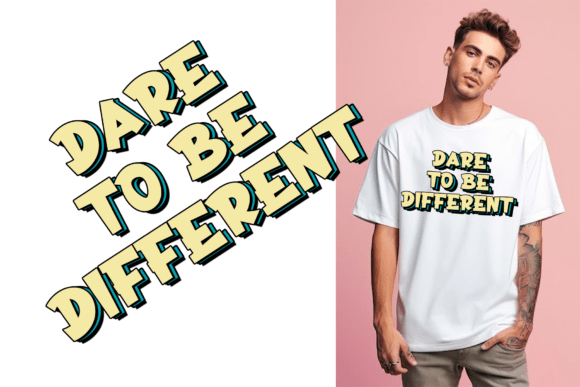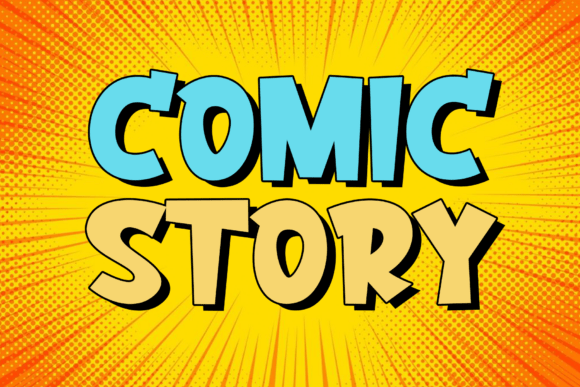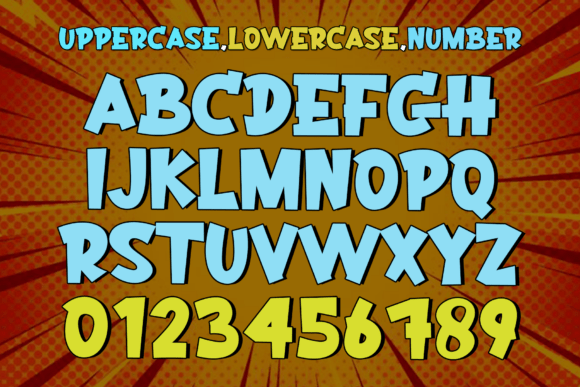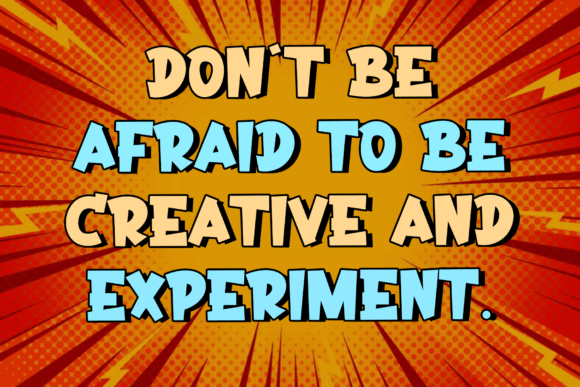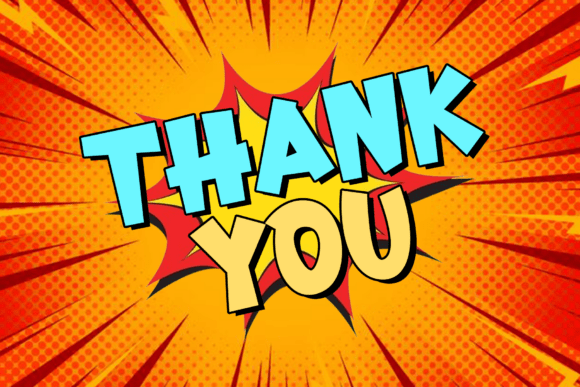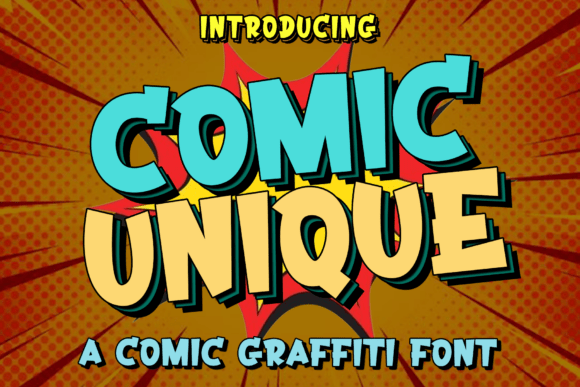
Introducing Comic Unique Font: The Perfect Blend of Clarity and Playfulness
In the world of typography, finding the right font can make all the difference in the success of a design project. Whether you’re a seasoned designer or a crafty DIY enthusiast, the font you choose can elevate your work from ordinary to extraordinary. That’s where Comic Unique Font comes in – a neat and casual display font that blends clarity with a relaxed, approachable vibe.
What Makes Comic Unique Font Stand Out?
Comic Unique Font is designed to bring a modern yet laid-back feel to your designs. Its clean lines and friendly letterforms make it perfect for a wide range of applications, from headlines and posters to packaging and branding. This font is all about balance – it has a structured design that ensures readability, while its playful energy adds a touch of personality to your work.
One of the key features that sets Comic Unique Font apart is its ability to convey a sense of approachability. In today’s design landscape, it’s easy to get lost in a sea of overly formal or generic fonts. But with Comic Unique Font, you can add a human touch to your designs that resonates with your audience.
The Benefits of Using Comic Unique Font
So why choose Comic Unique Font for your next project? Here are just a few benefits that make it an excellent choice:
- Readability: Despite its playful nature, Comic Unique Font remains highly legible, even at smaller sizes. This makes it perfect for designs that require both style and substance.
- Versatility: From bold headlines to subtle text, Comic Unique Font adapts seamlessly to different design applications.
- Personality: This font has a unique charm that adds a touch of whimsy to your designs, making them more engaging and memorable.
- Modern Appeal: With its clean lines and balanced structure, Comic Unique Font has a distinctly modern feel that’s perfect for brands looking to refresh their image.
Whether you’re a professional designer or a DIY enthusiast, Comic Unique Font is an excellent addition to your toolkit. Here are some ways you can use this font to elevate your work:
Design Applications:
- Headlines and Posters: Use Comic Unique Font to create eye-catching headlines and posters that demand attention.
- Branding and Packaging: Add a touch of personality to your brand’s packaging and marketing materials with this unique font.
- Digital Media: From social media graphics to website headers, Comic Unique Font is perfect for creating engaging digital content.
Crafting and DIY Projects:
- Paper Crafts: Use Comic Unique Font to add a personal touch to your paper crafts, from greeting cards to scrapbooking.
- Sign Making: Create eye-catching signs for your business or home with this highly legible and stylish font.
- DIY Projects: From crafting labels to creating custom decorations, Comic Unique Font is perfect for adding a touch of whimsy to your DIY projects.
In conclusion, Comic Unique Font is a versatile and stylish display font that’s perfect for designers and crafters alike. Its unique blend of clarity and playfulness makes it an excellent choice for a wide range of design applications. Whether you’re looking to add a touch of personality to your brand’s marketing materials or create eye-catching DIY projects, Comic Unique Font is sure to deliver.